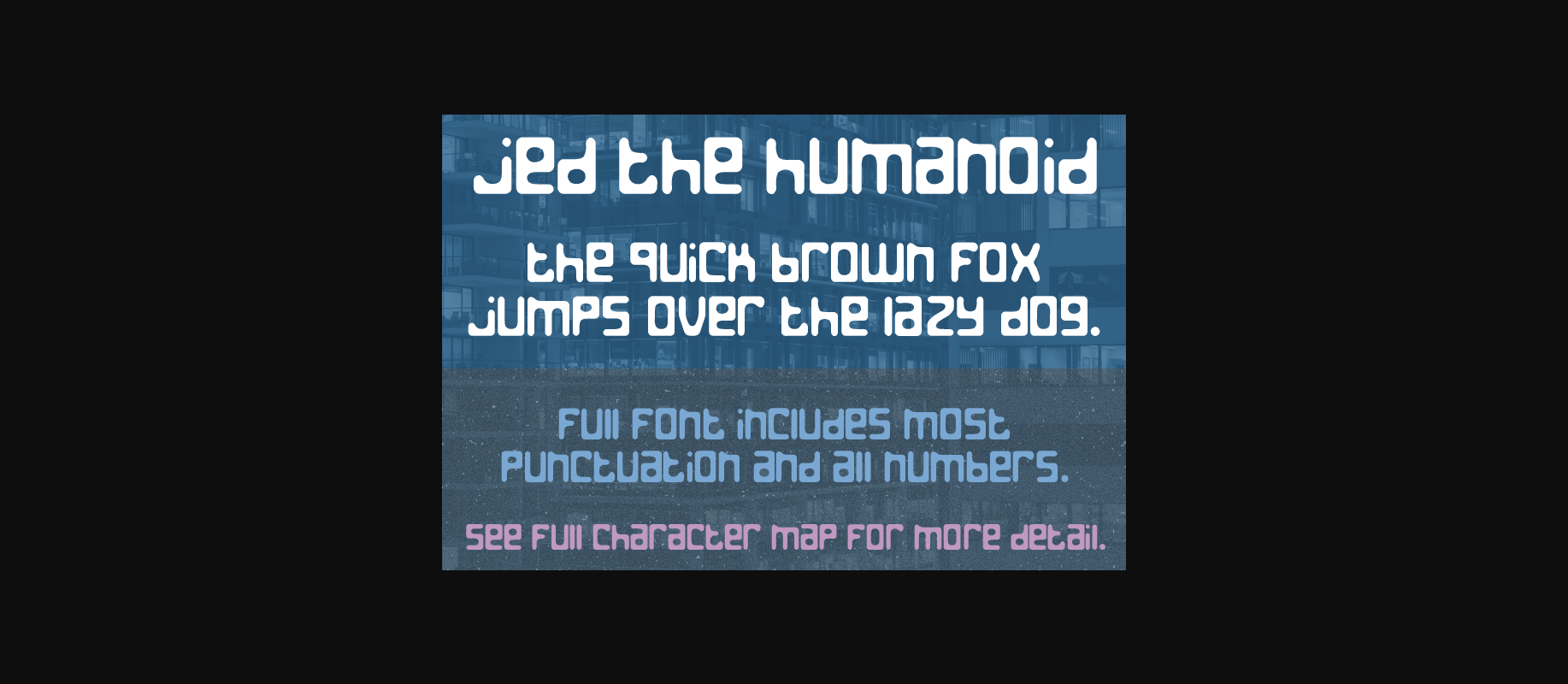
Jed the Humanoid Font
About Jed the Humanoid Font
Jed the Humanoid, originally released in September of 2001, was inspired by the song of the same name by the band Grandaddy. It was my first (and at the time of this writing, my only) attempt at making a futuristic font. The caps and lowercase are the same.